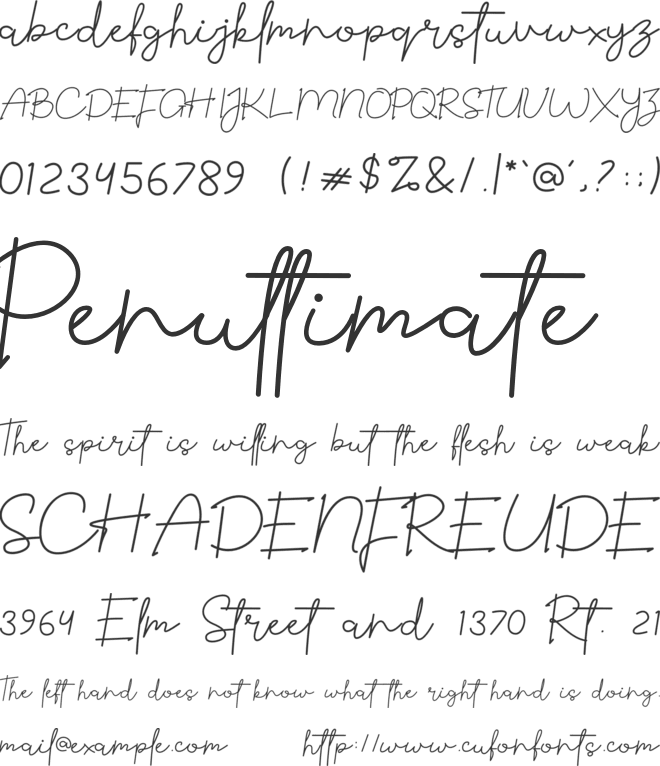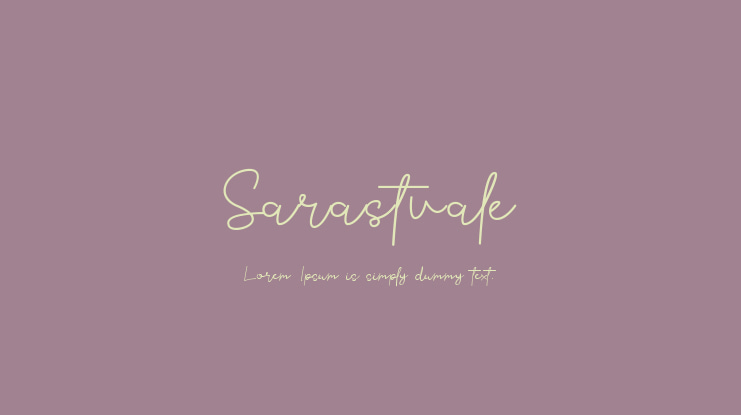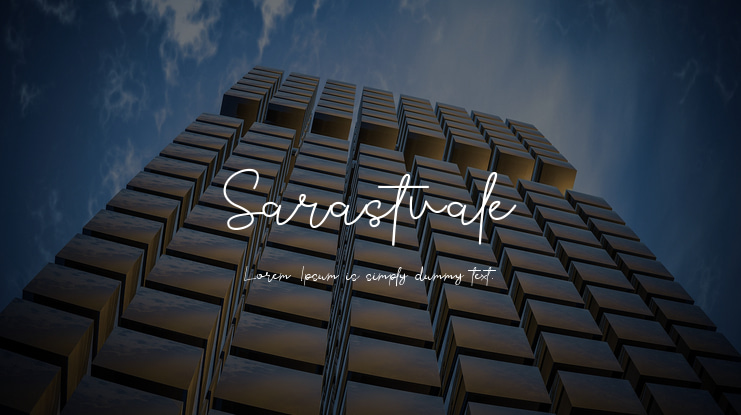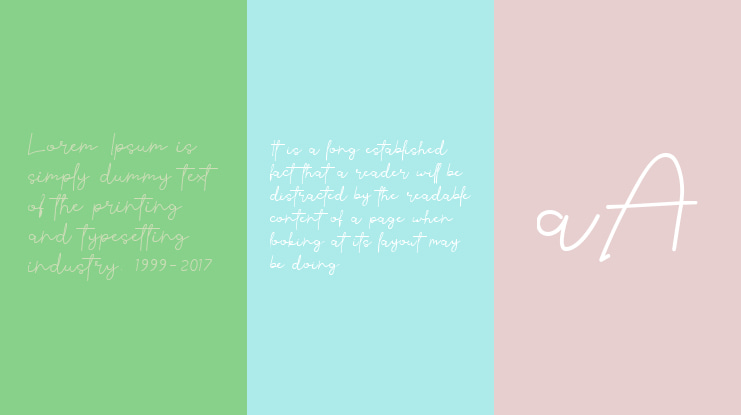
Sarastvale Font
Weetype 2020 - Yosep Hendhry - Weetype
Sarastvale Signature consisting of a fashionable sophisticated signature-style script with its own unique curves and an elegant inky flow.Sarastvale Signature is perfect for branding projects, logo, wedding designs, social media posts, advertisements, product packaging, product designs, label, photography, watermark, invitation, stationery and any projects that need handwriting taste.What's Included :Sarastvale Signature (OTF/TTF/WOFF)Web FontsStandard glyphsLigatureWorks on PC & MacSimple installationsAccessible in the Adobe Illustrator, Adobe Photoshop, Adobe InDesign, even work on Microsoft Word.PUA Encoded Characters - Fully accessible without additional design software.Fonts include multilingual support for; ä ö ü Ä Ö Ü ß ¿ ¡
Sarastvale font preview